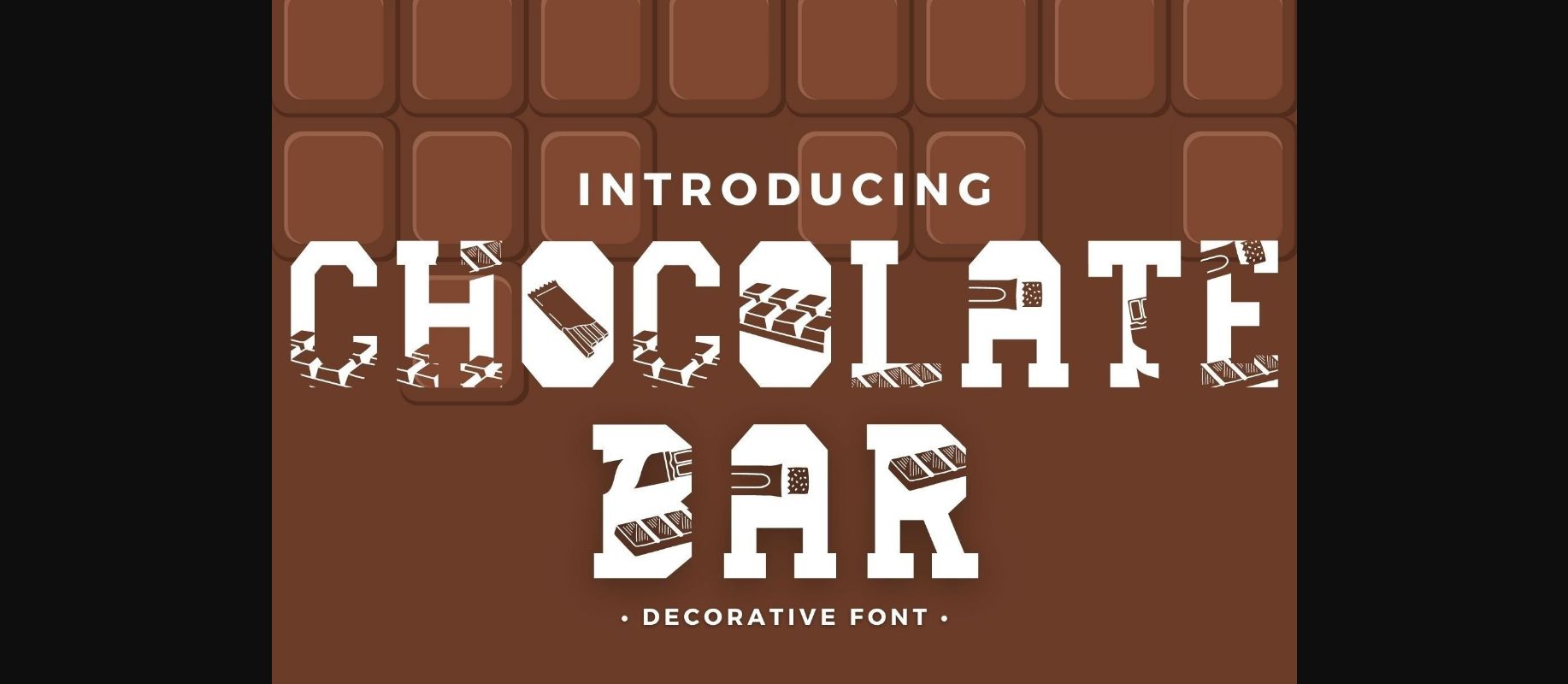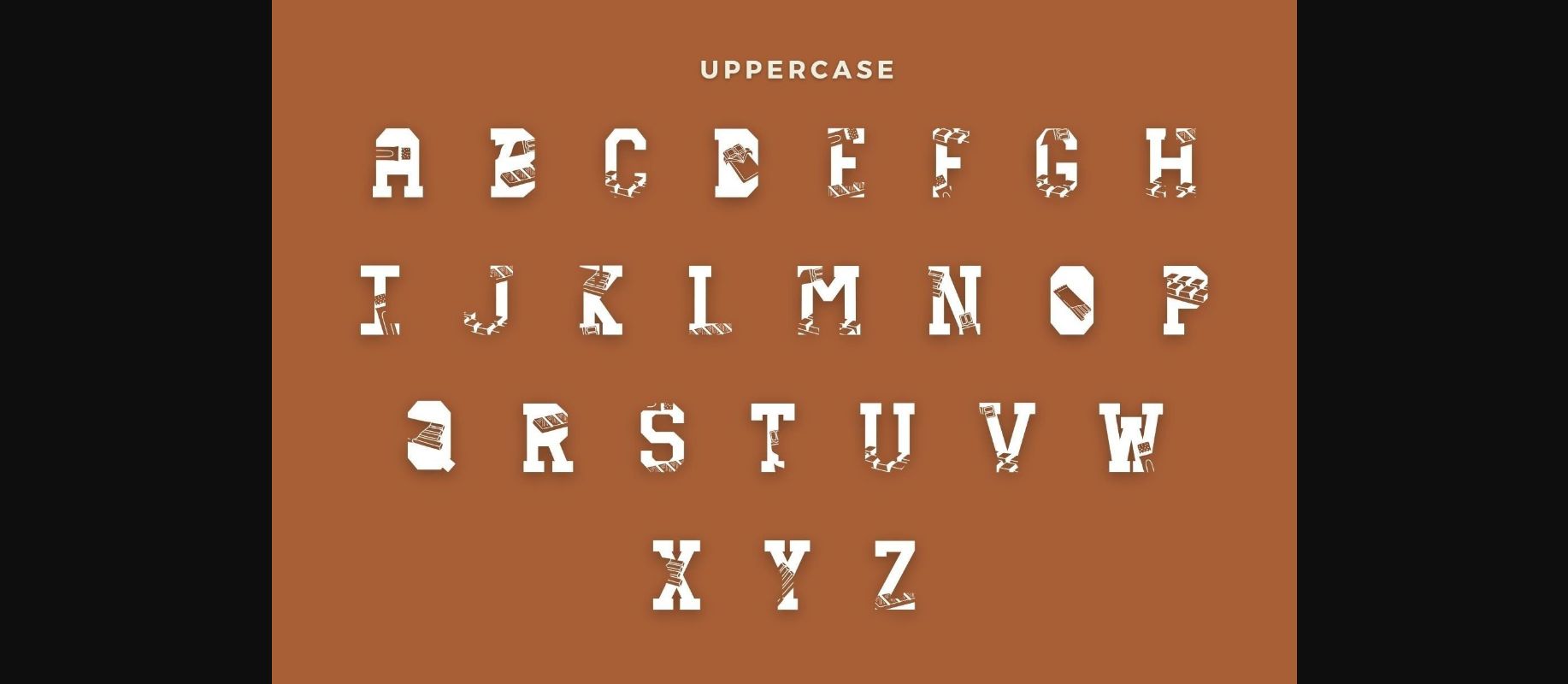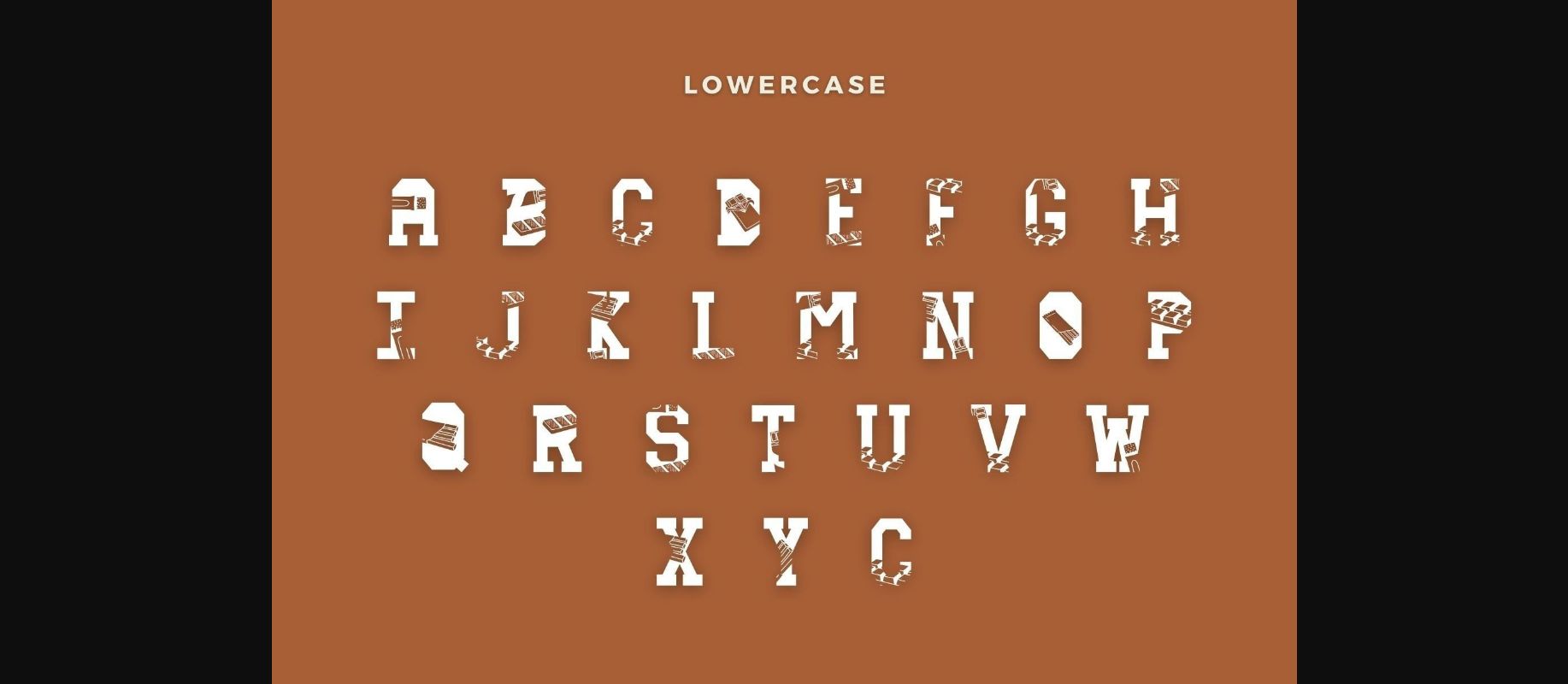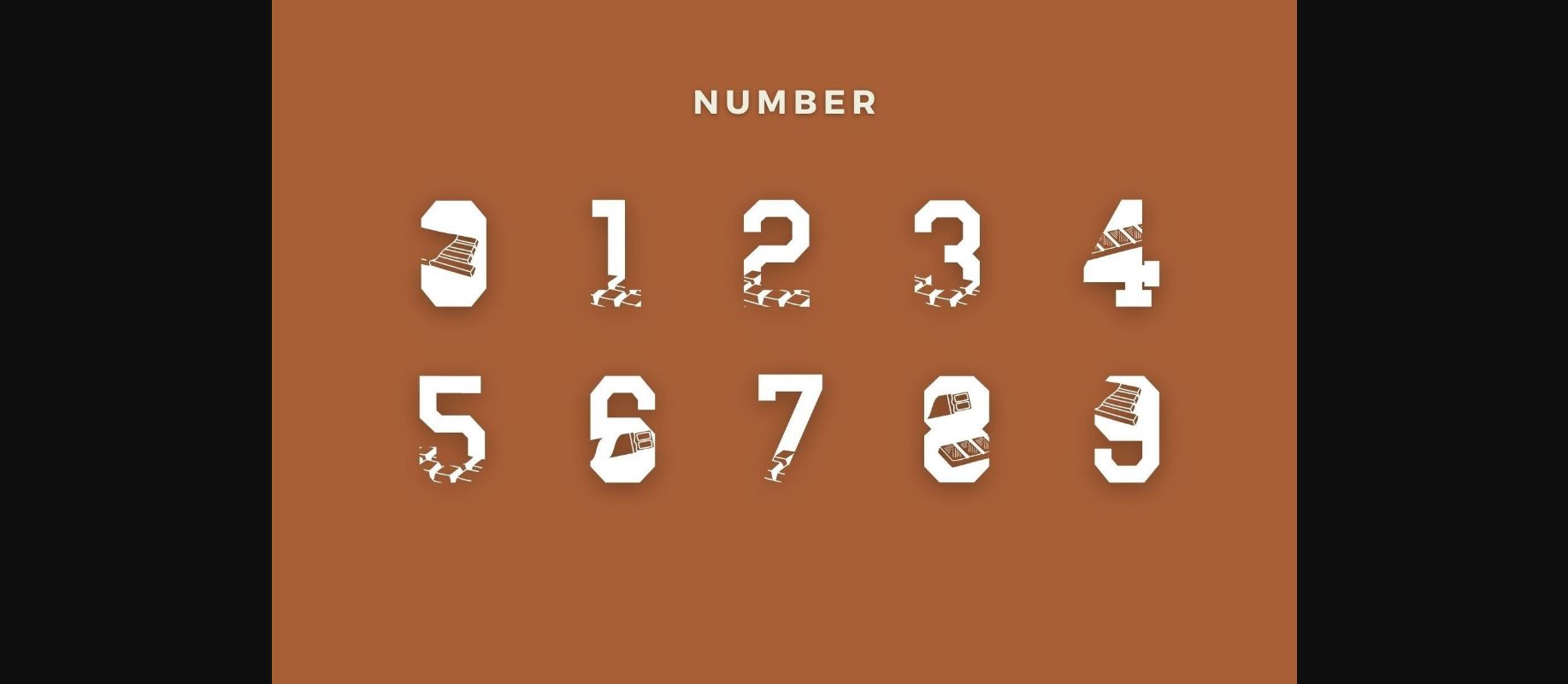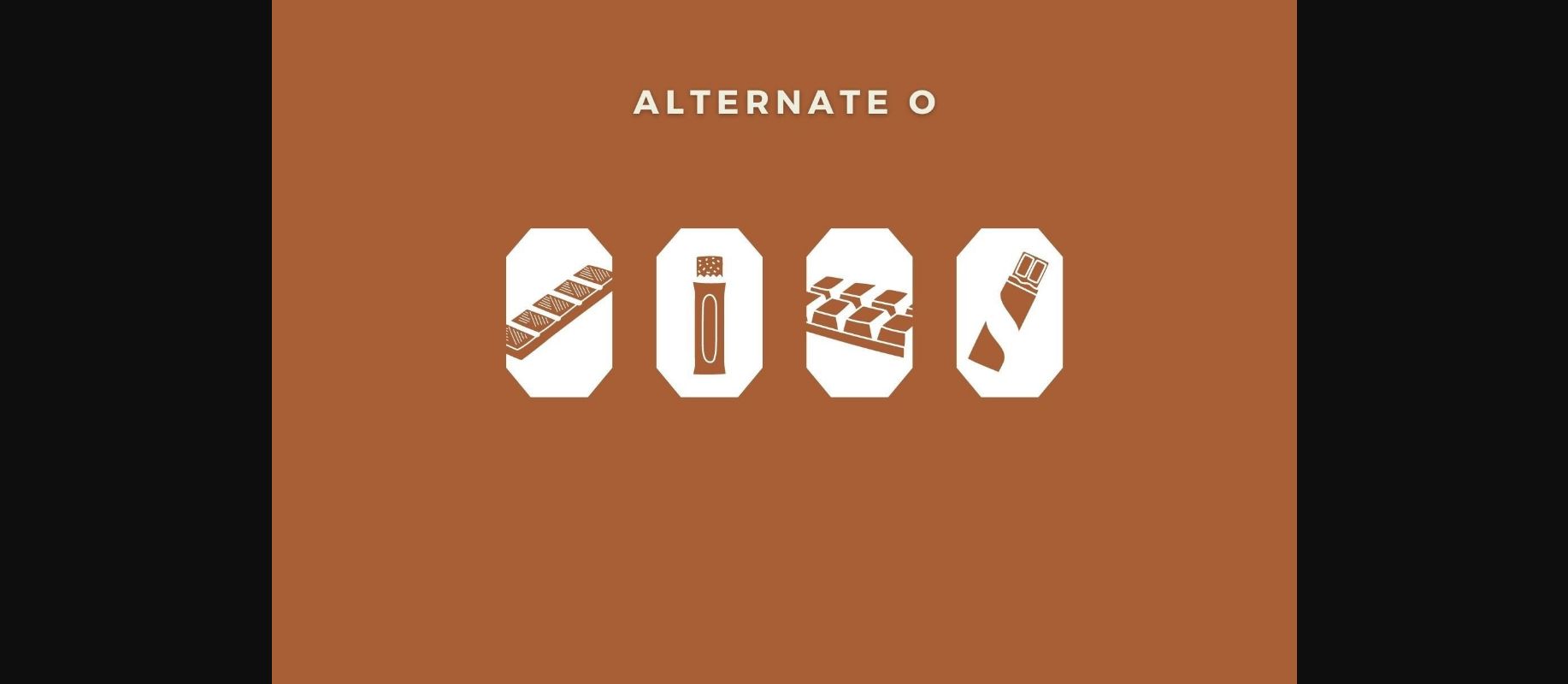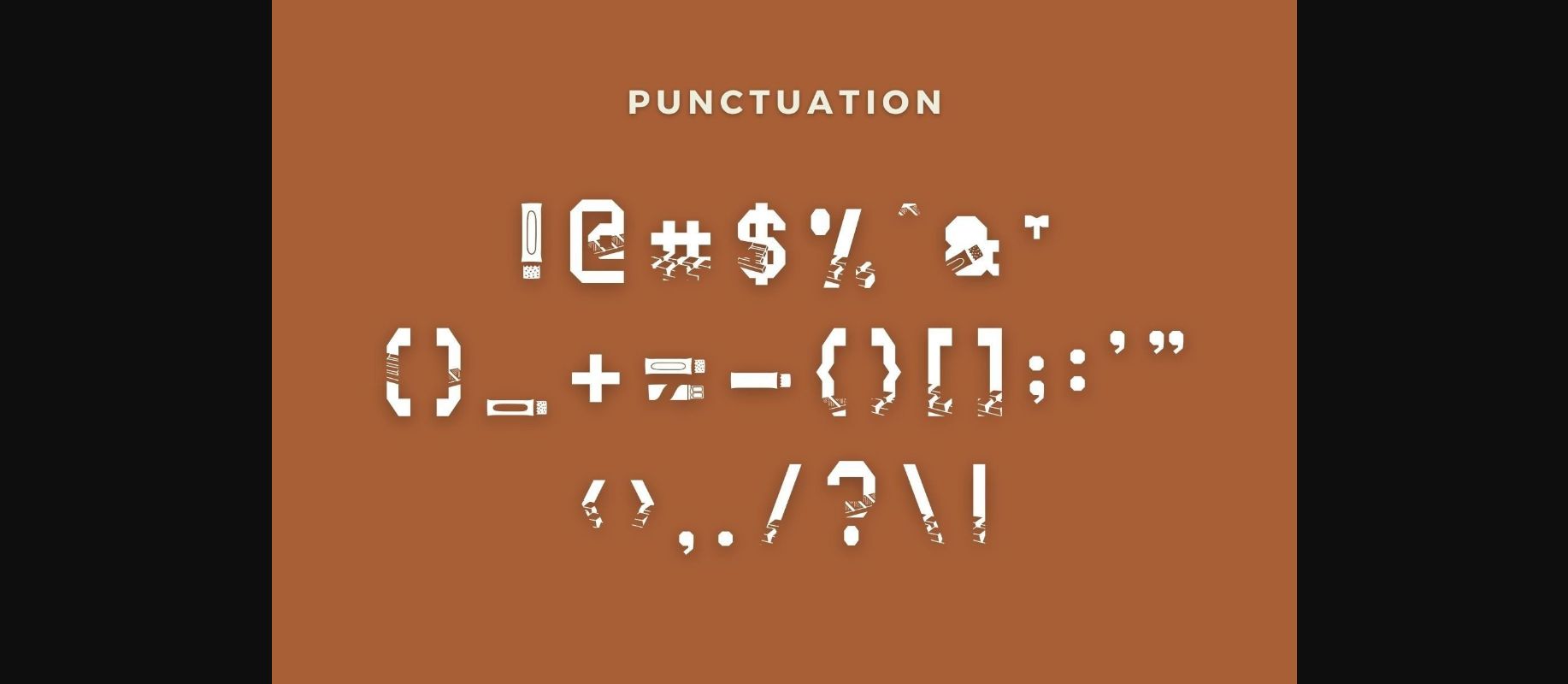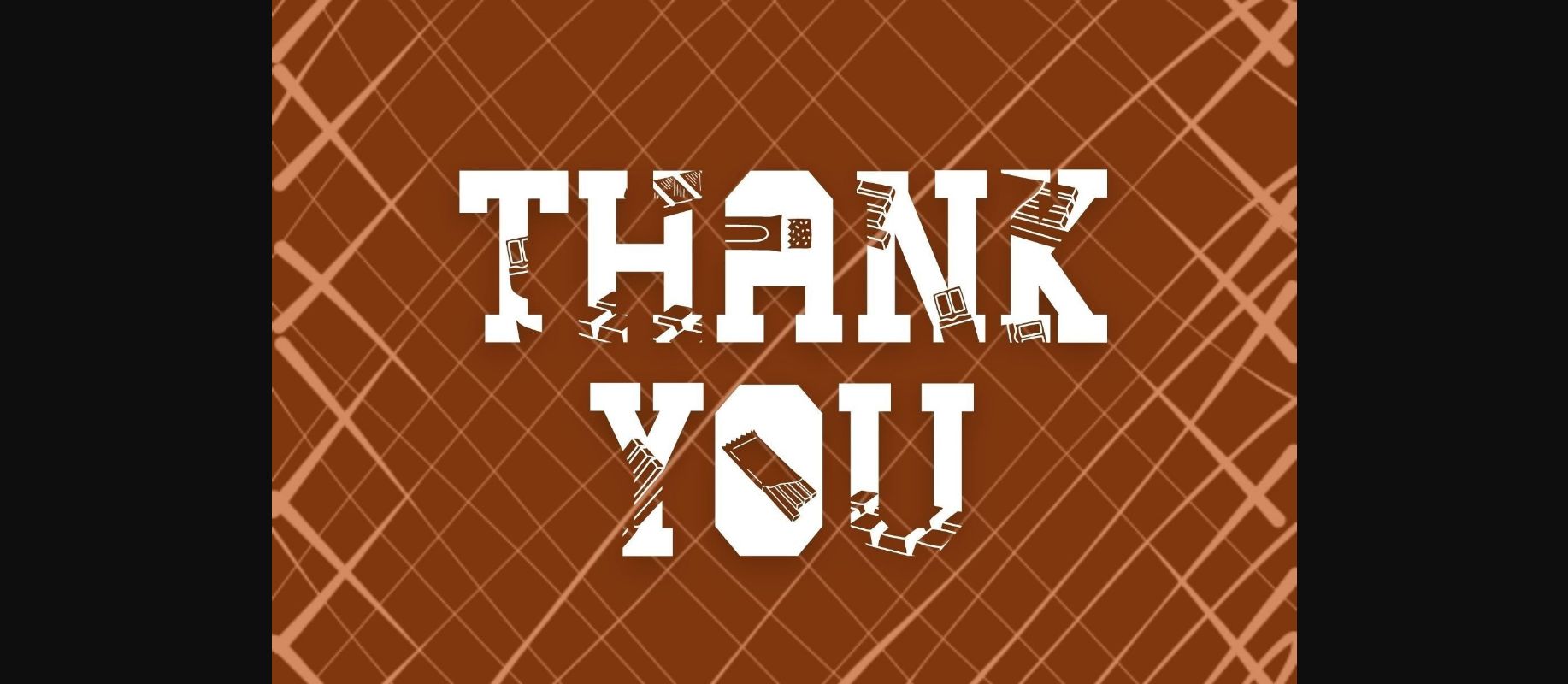
Chocolate Bar Font
About Chocolate Bar Font
Chocolate Bar is a cute and fun decorative font. It embodies playfulness and authenticity and is the perfect choice for various projects such as blog posts, logos, branding, ads, invitations, greeting cards, planners, photo albums, decorations, and much more. Add it to any of your designs, and enjoy the results!